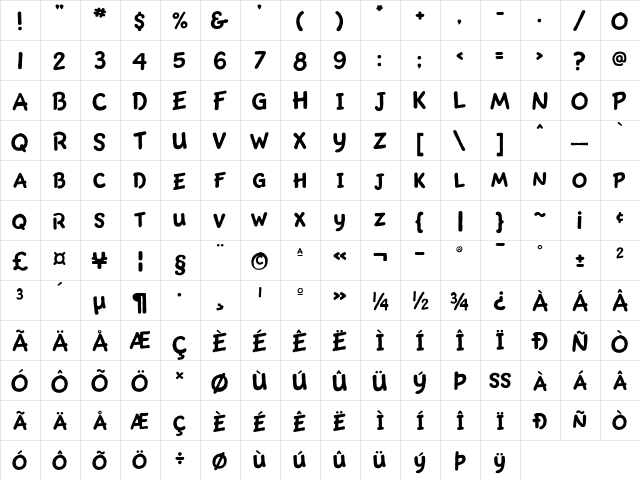
Valentina Regular Font Preview
Valentina Regular
Valentina Regular Font Details
Design Context for Valentina Typeface
Valentina is a composed and adaptable typeface that performs quietly and consistently across a wide range of design contexts.
Pro Tip: Use Valentina in both headline and body roles to test its range before committing to a single application.